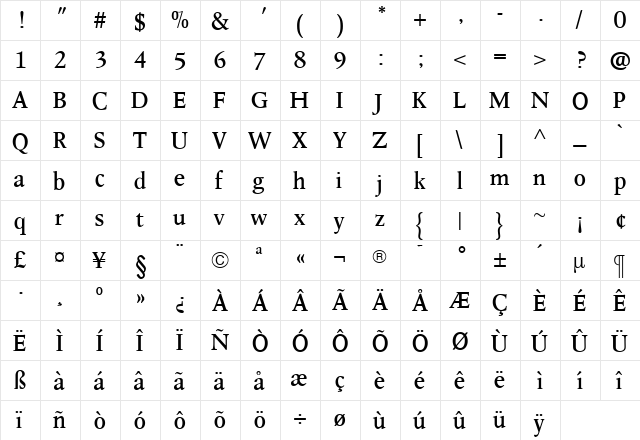
LeightonBold Roman
Design Context for LeightonBold Typeface
LeightonBold takes a measured approach to typography — its balanced proportions and neutral character make it a reliable workhorse for both digital and print work. The heavy weight commands attention and anchors typographic hierarchies.